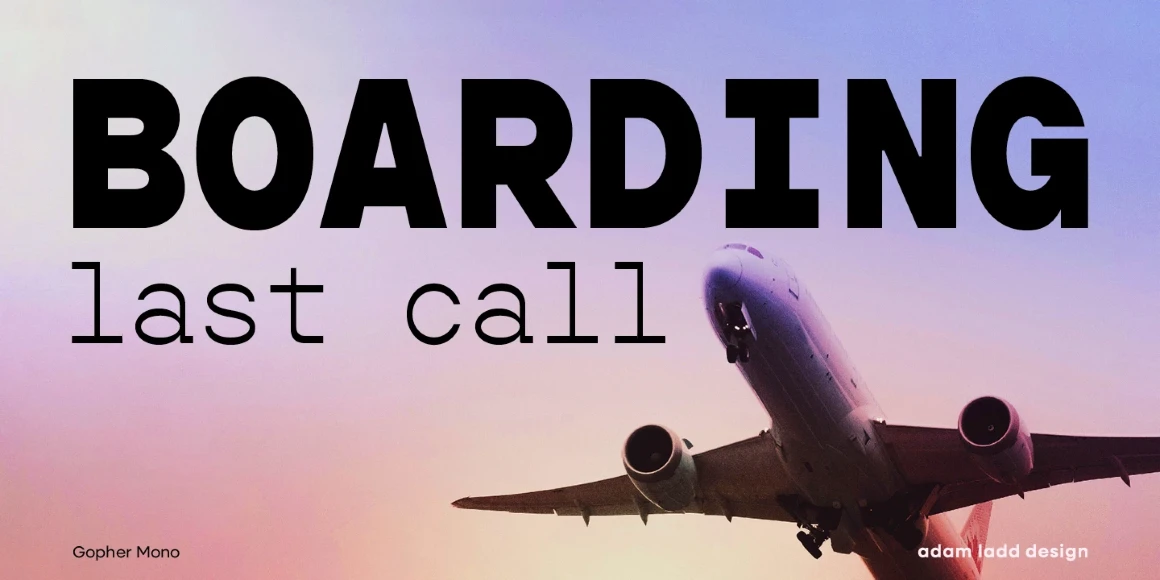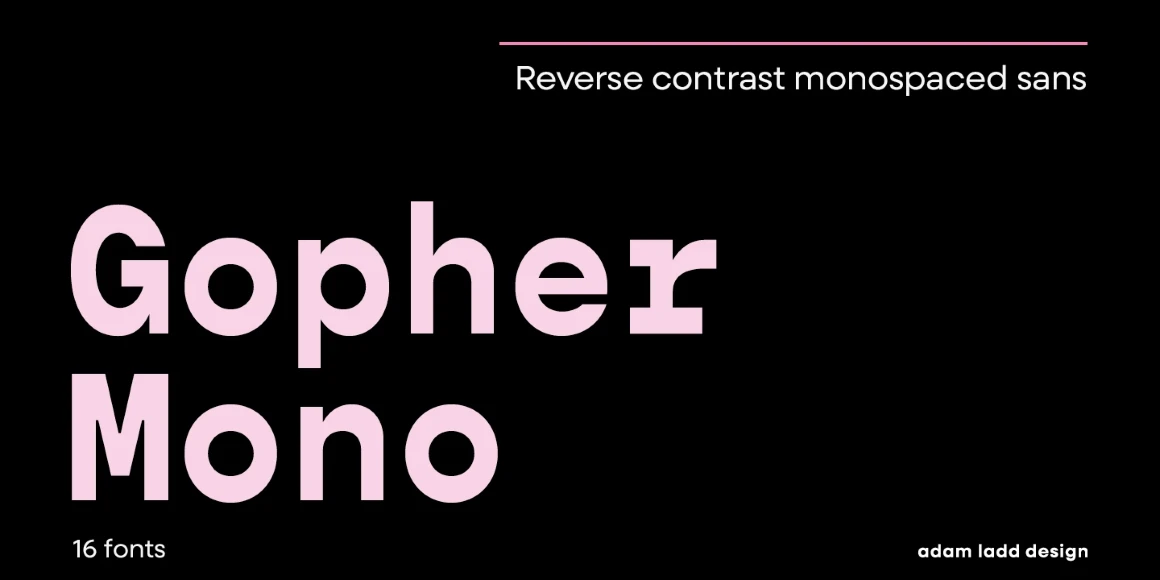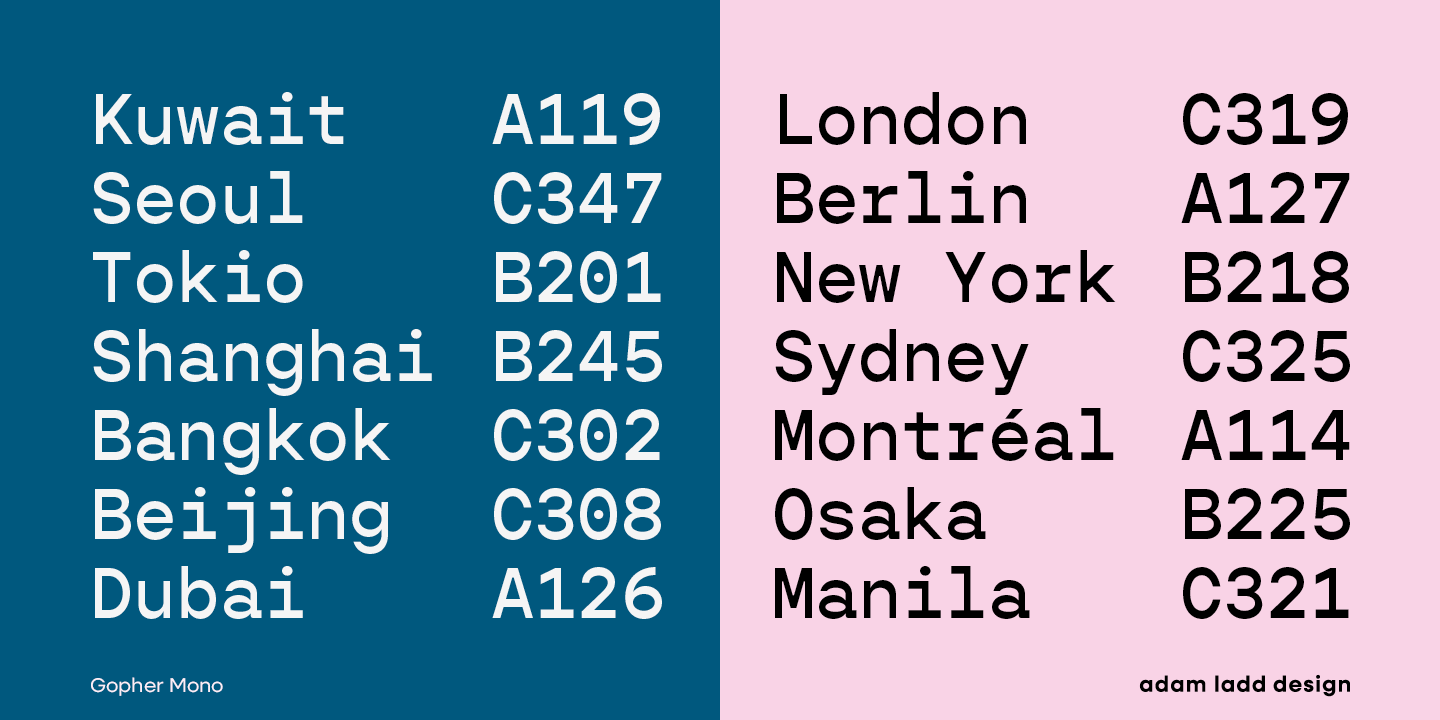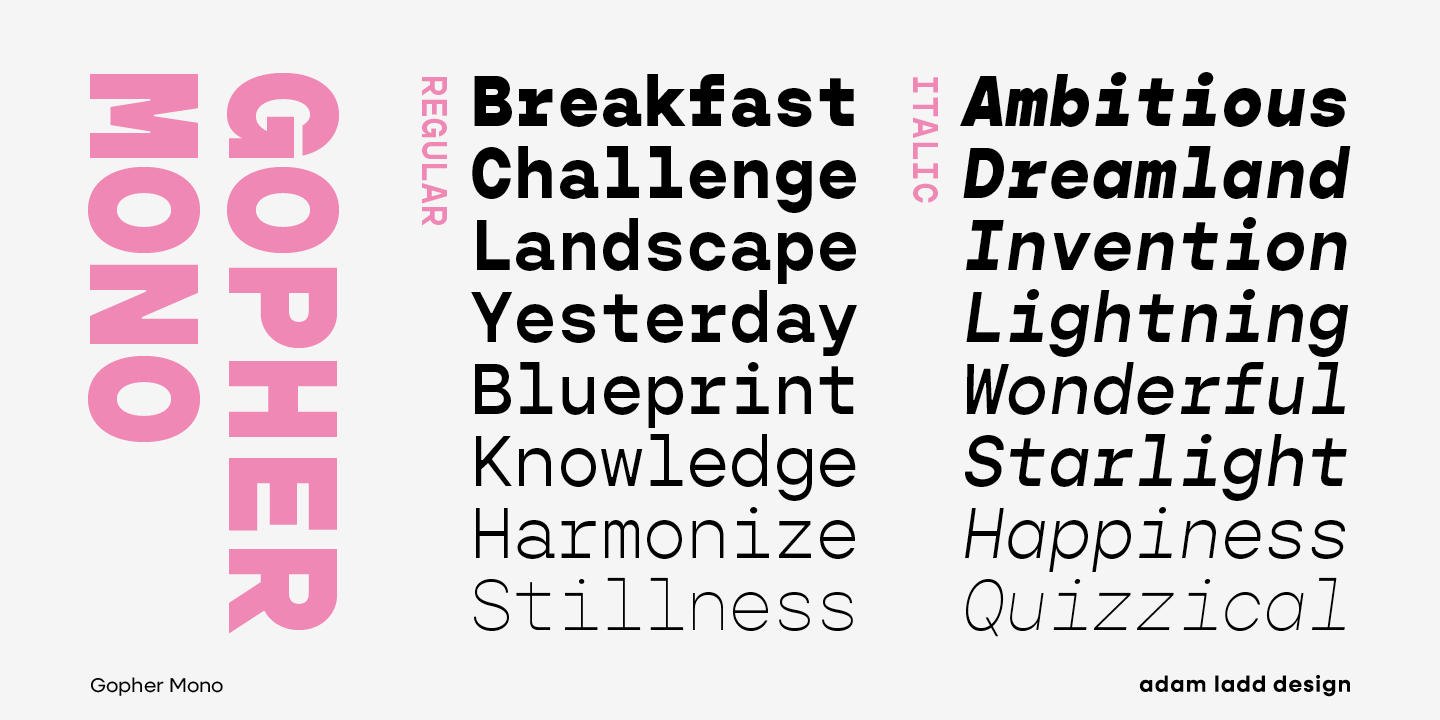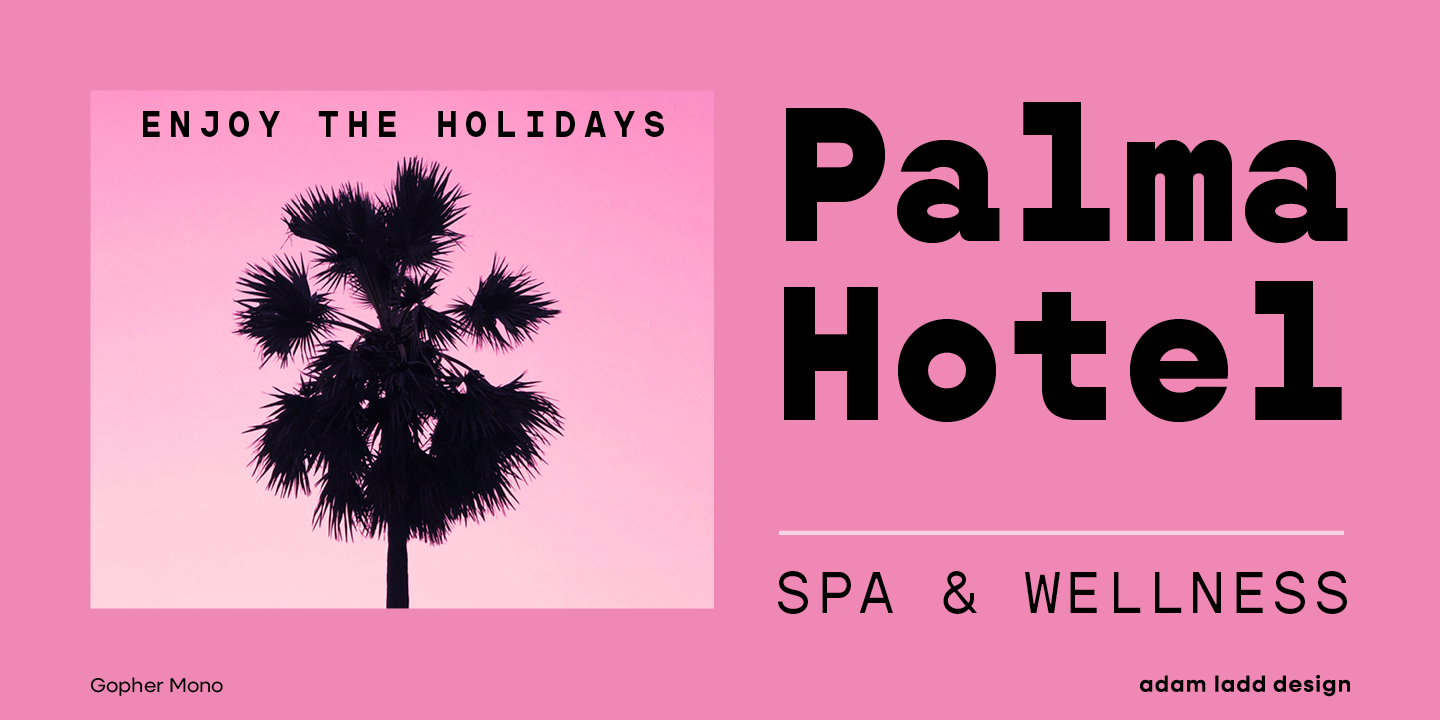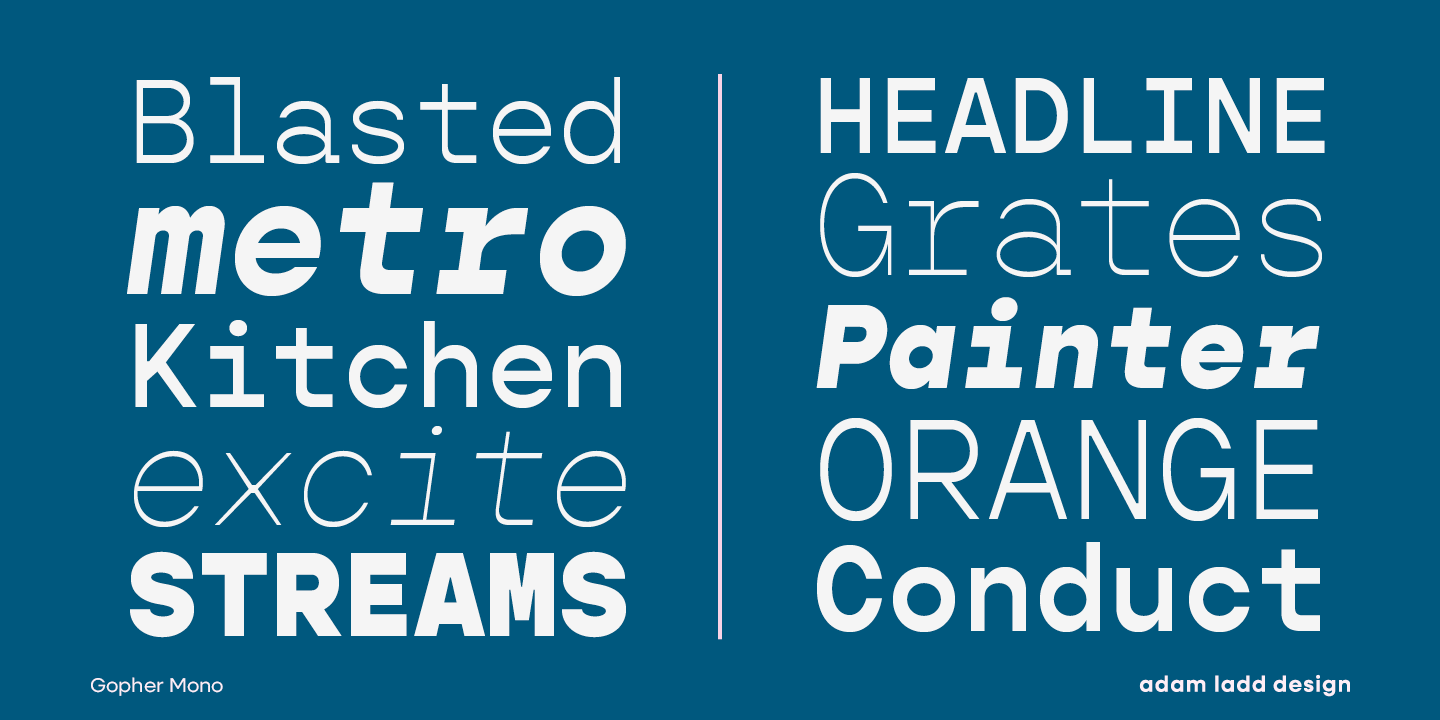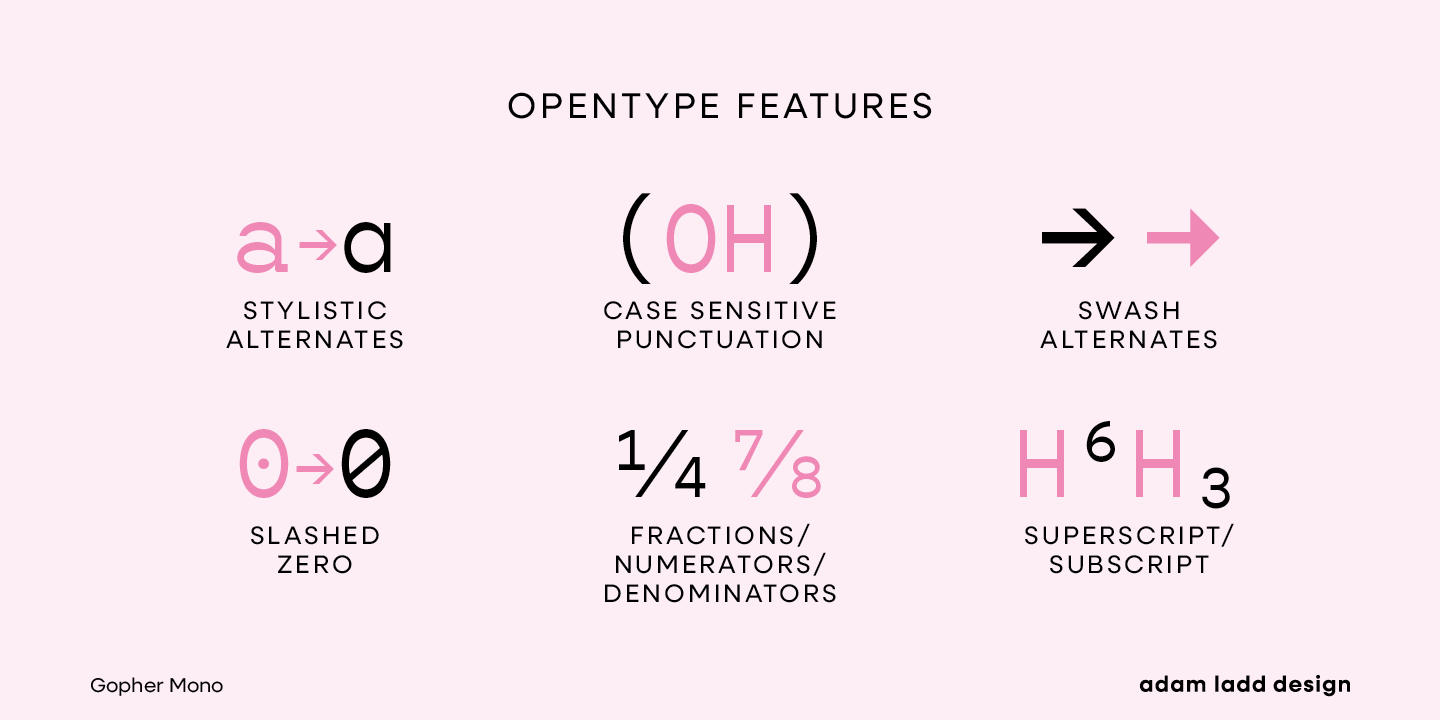
Gopher Mono
By Adam Ladd
Gopher Mono is a unique take on the monospaced genre with its unexpected reverse contrast design. While monospaced fonts are typically used for smaller body text, the slightly unusual quirks combining style and function make it eye-catching for display use. Pairing it with Gopher Display, Normal, and Text expands the possibilities — with varying degrees of reverse contrast being the design thread that unites them — making Gopher at home in branding, advertising, editorial, packaging, and more.